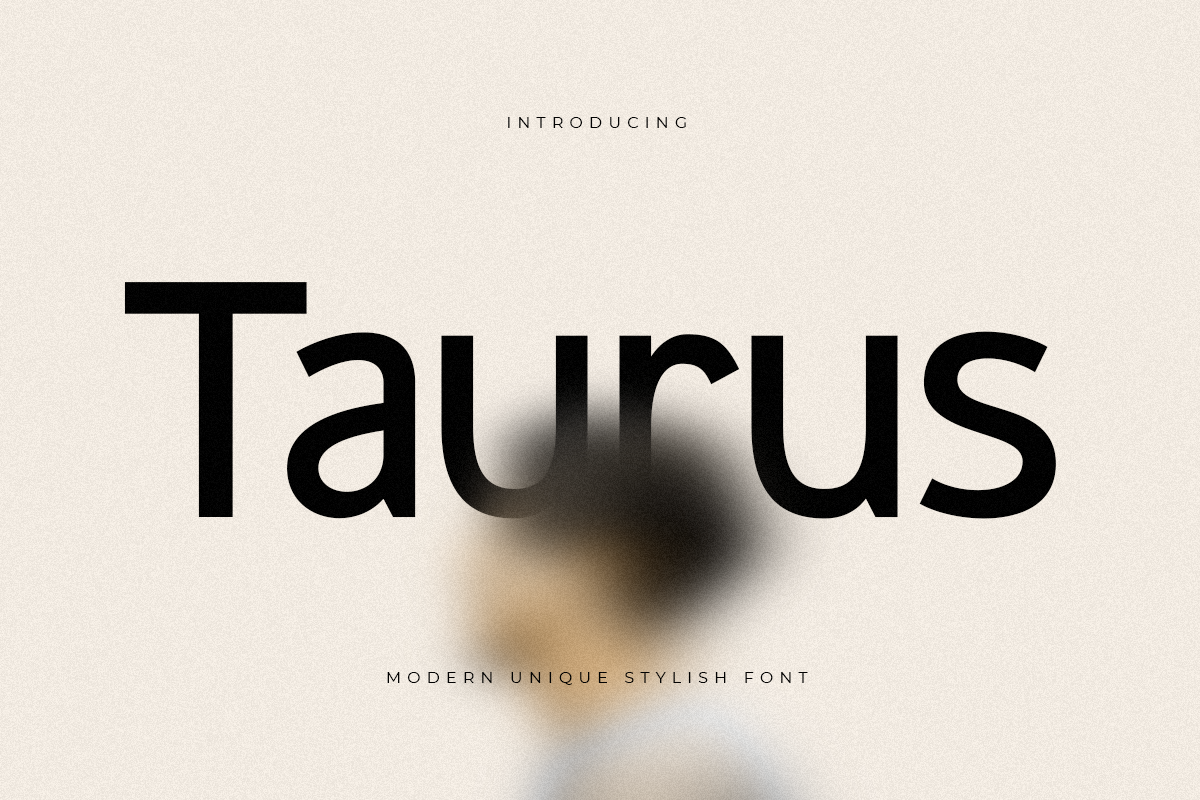
Taurus - Modern Unique Stylish Font
Elevate your brand with Taurus - a distinctive sans serif font crafted for unique branding needs. This specially designed typeface features extra ligatures in unique shapes that add exceptional value to your brand identity. Perfect for designers and product owners seeking solutions to make their designs stand out with a modern, unique aesthetic. Taurus offers unlimited creative possibilities through its comprehensive ligature system, allowing you to create countless variations for any creative p...